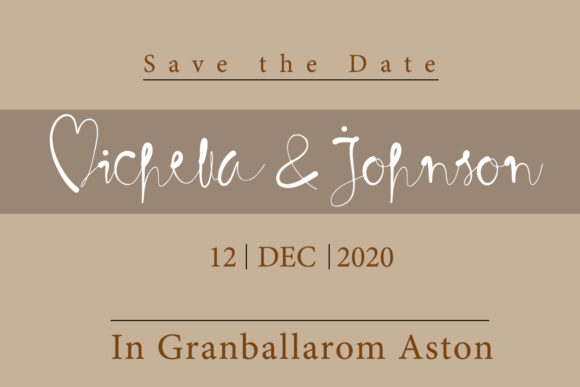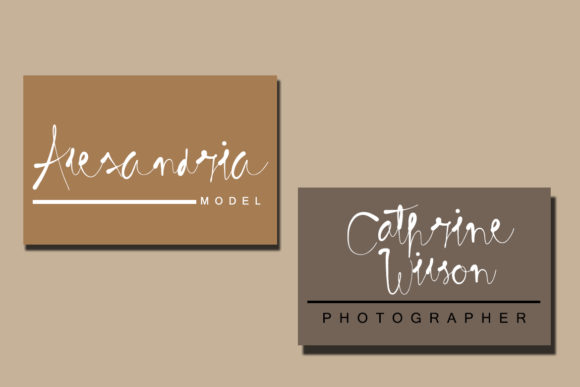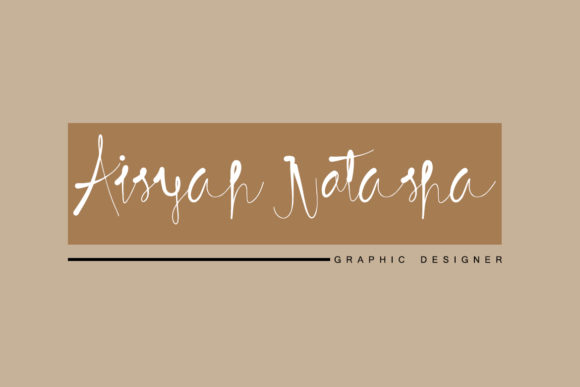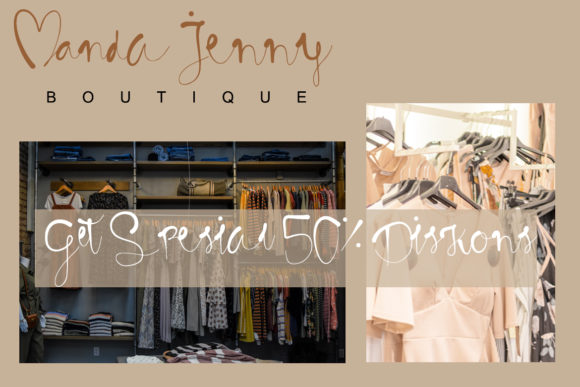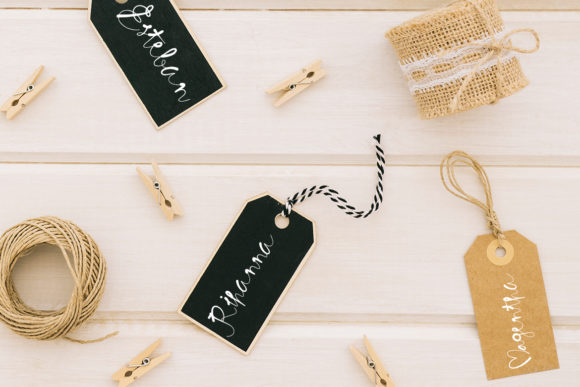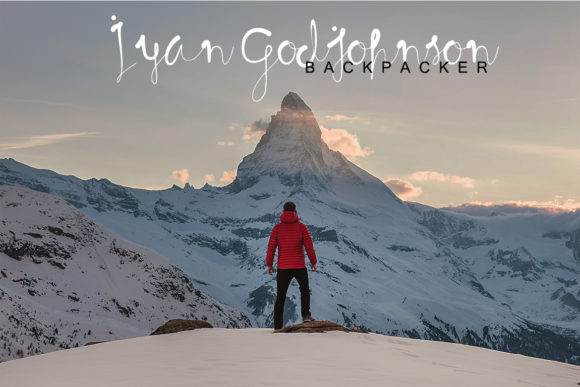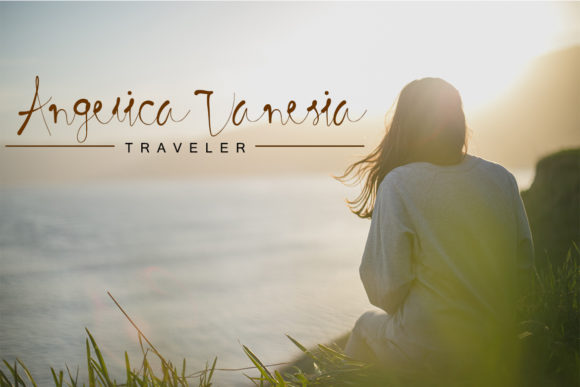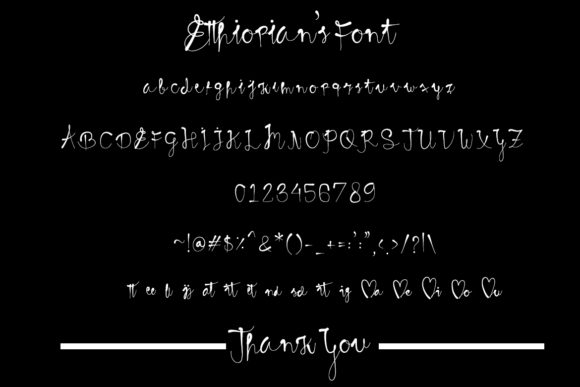
Etthiopian Font
About Etthiopian Font
Etthiopian is a sophisticated and contemporary calligraphy font that embodies elegance and modernity. Its minimalist design and sleek curves give it a refined and refined look, making it an excellent choice for a wide range of design purposes.
The font’s clean and stylish appearance makes it ideal for various applications, such as product labels, packaging, and branding materials. Its versatility allows it to work seamlessly across different industries and design contexts, from fashion and beauty to technology and lifestyle.
For special occasions like weddings, Etthiopian adds a touch of sophistication to wedding invitations and stationery, creating a memorable and luxurious feel. Its graceful and flowing characters can elevate the overall aesthetics of the event and leave a lasting impression on guests.
In the realm of business, Etthiopian can be employed in creating professional and elegant business cards, logos, and corporate materials. Its sleek calligraphic style adds a sense of exclusivity and class to a brand, making it stand out from the competition.
As a PUA encoded font, Etthiopian provides easy access to its extensive set of glyphs and swashes, allowing users to add decorative elements and unique flourishes to their designs effortlessly. This feature enhances its versatility and offers designers more creative freedom to customize their projects.
Overall, Etthiopian is a modern and minimalist calligraphy font that exudes elegance and sophistication. Its versatility and PUA encoding make it a valuable asset for designers looking to create stylish and impactful designs, be it for product labels, wedding invitations, business cards, or other branding-related projects.